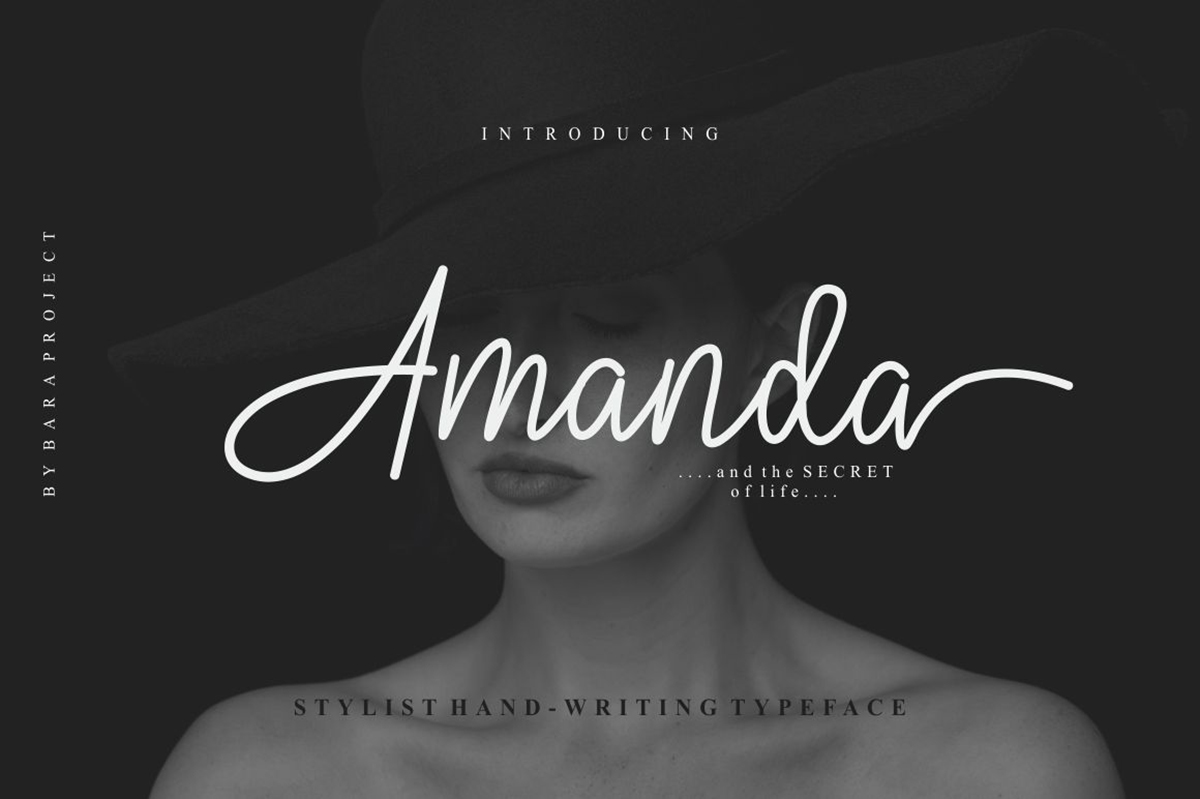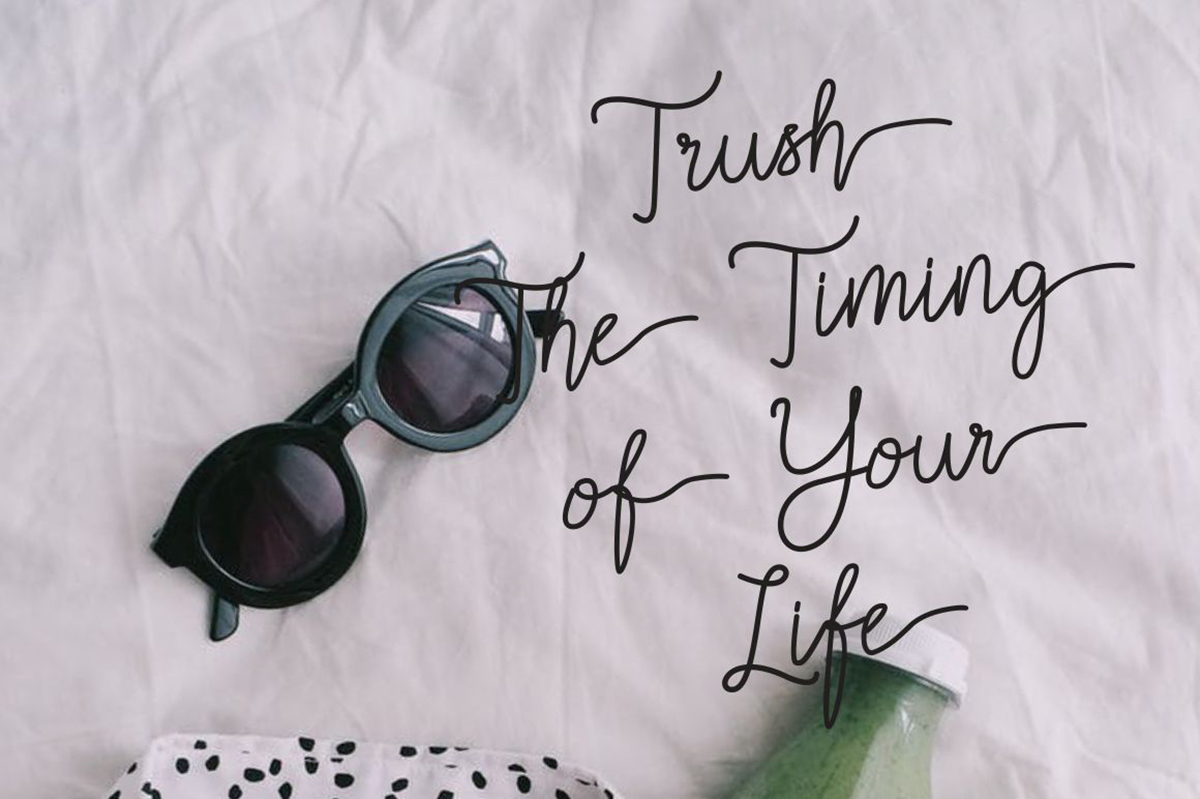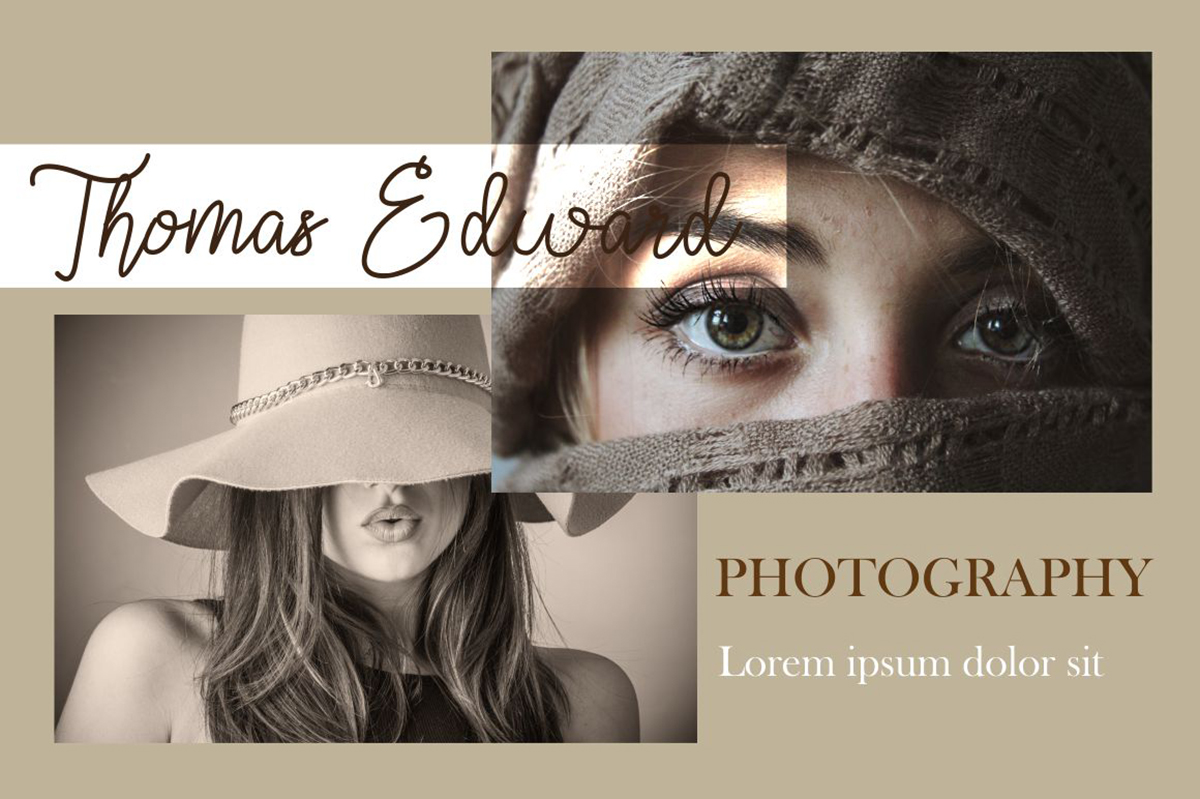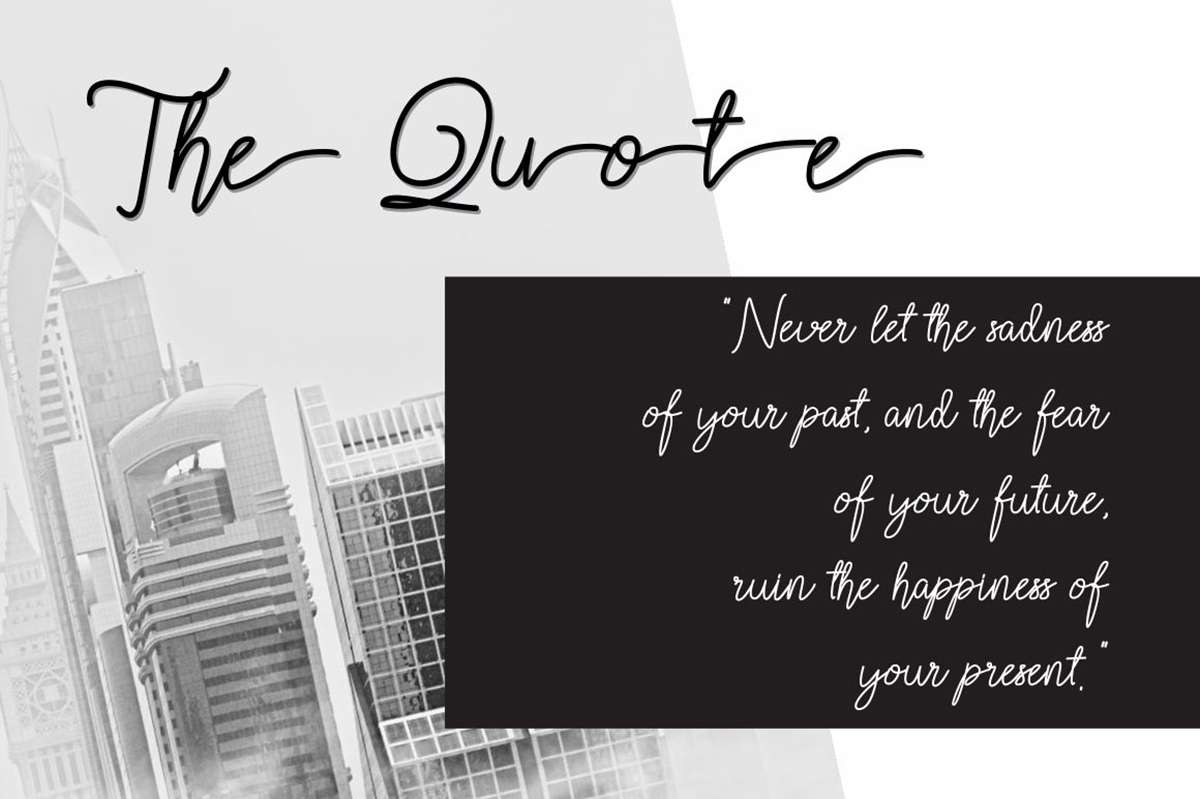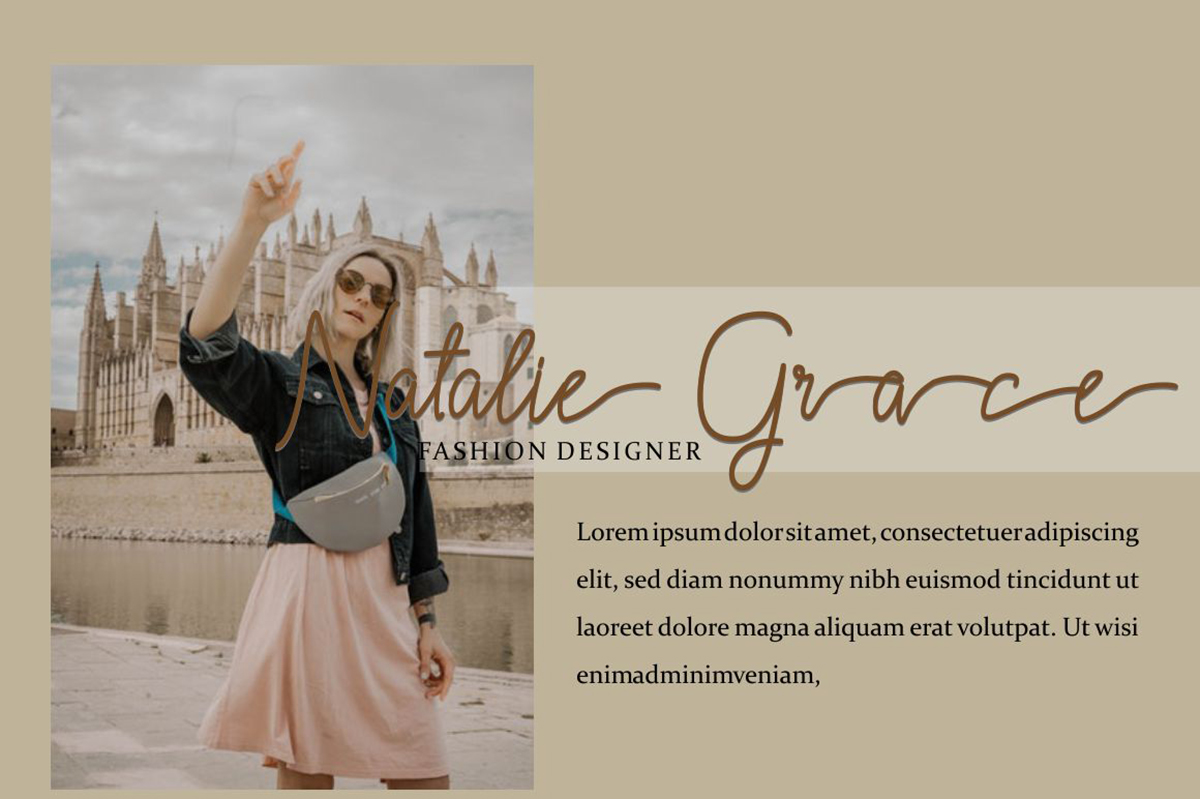
Amanda Free Font
Amanda Free Font is a hand-writing typeface font. Very suitable for poster designs, business cards, invitations, logos, identity branding. This free typeface was designed by talented Bara Project. If you like it don’t forget to check out the full version.